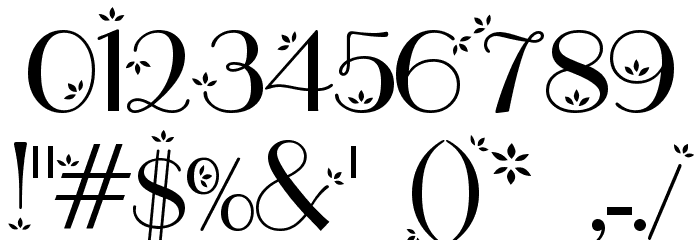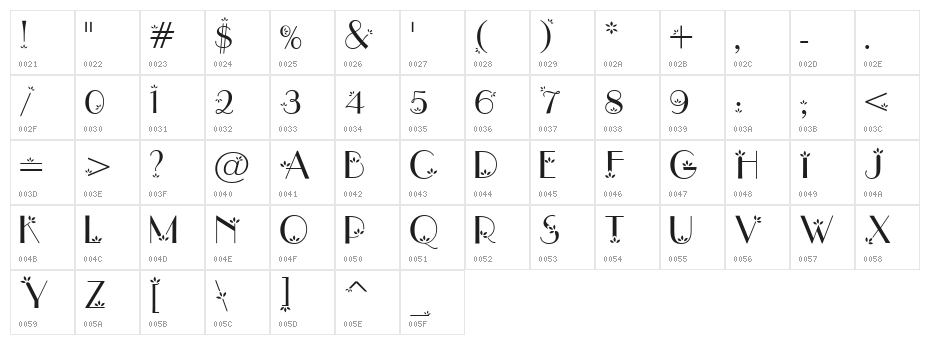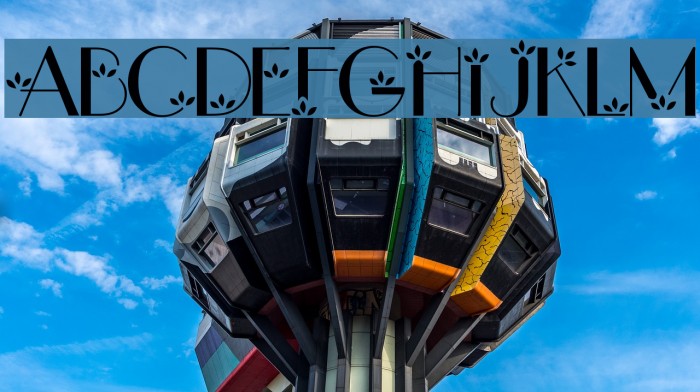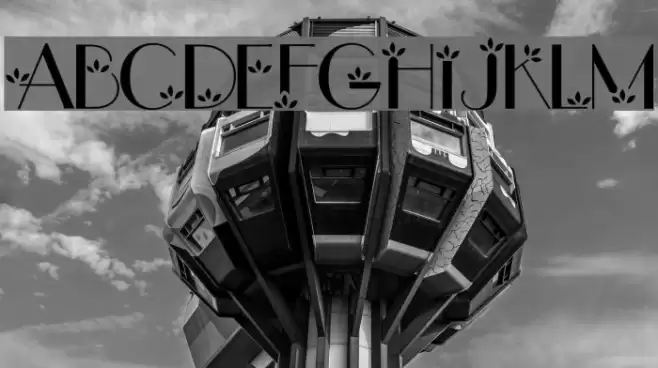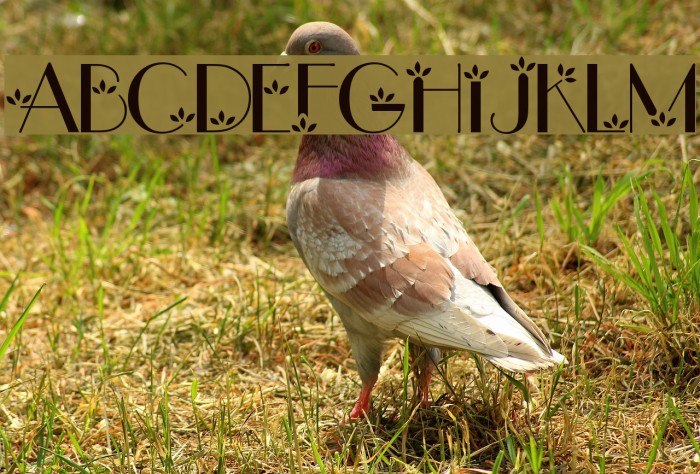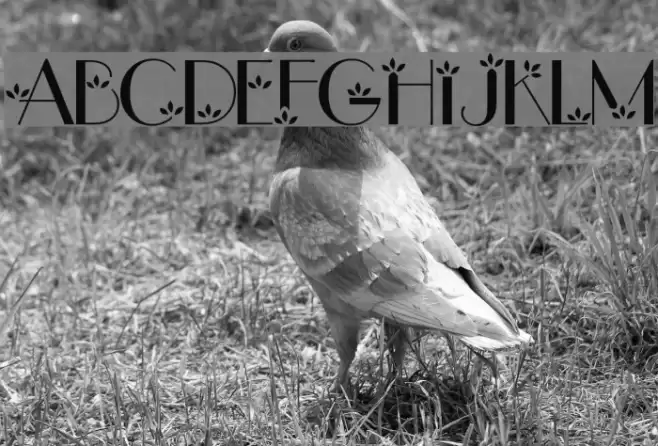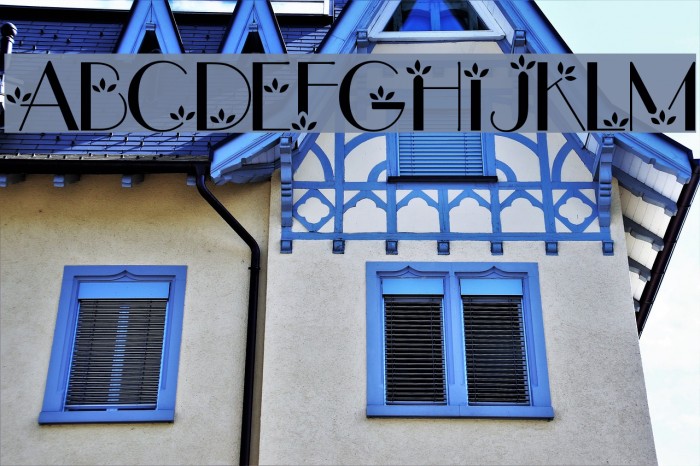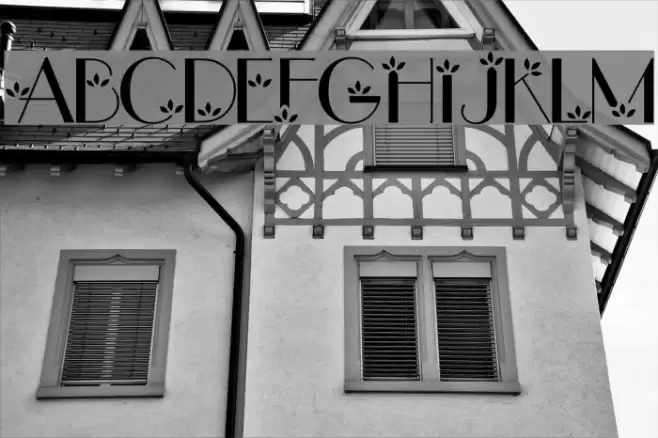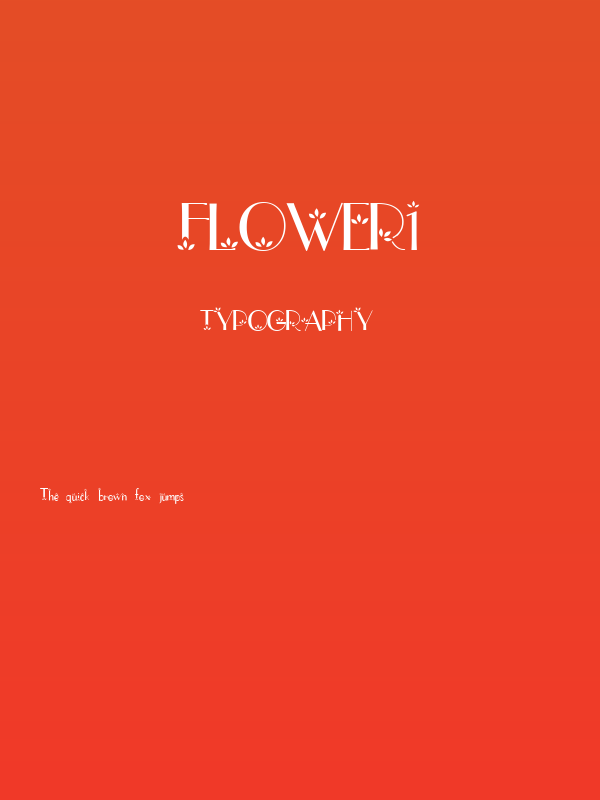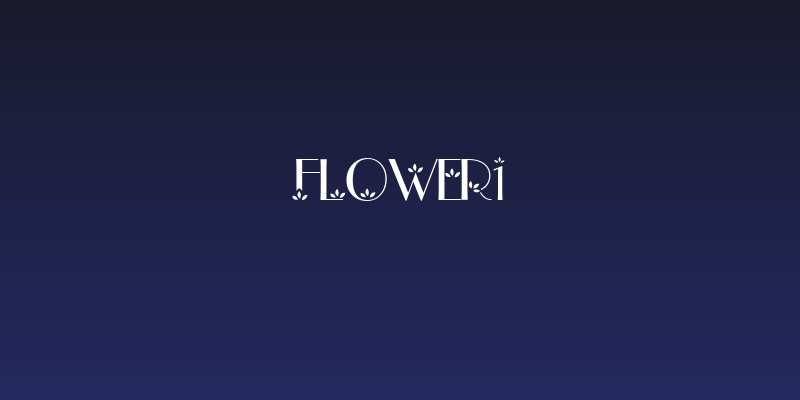
flower1 Font
flower1 Description
This decorative font features elegant floral embellishments integrated into each character, creating a whimsical and artistic appearance. The uppercase letters are bold and striking, with floral motifs accentuating the curves and lines. The lowercase letters maintain a consistent style, with the floral elements adding a touch of playfulness. Numbers and special characters are designed to match the overall theme, ensuring a cohesive look across all text. The font's unique style makes it ideal for creative and artistic projects where a touch of nature and elegance is desired.
| Proposed Projects | Ideal for wedding invitations, greeting cards, branding for eco-friendly products, and decorative posters. |